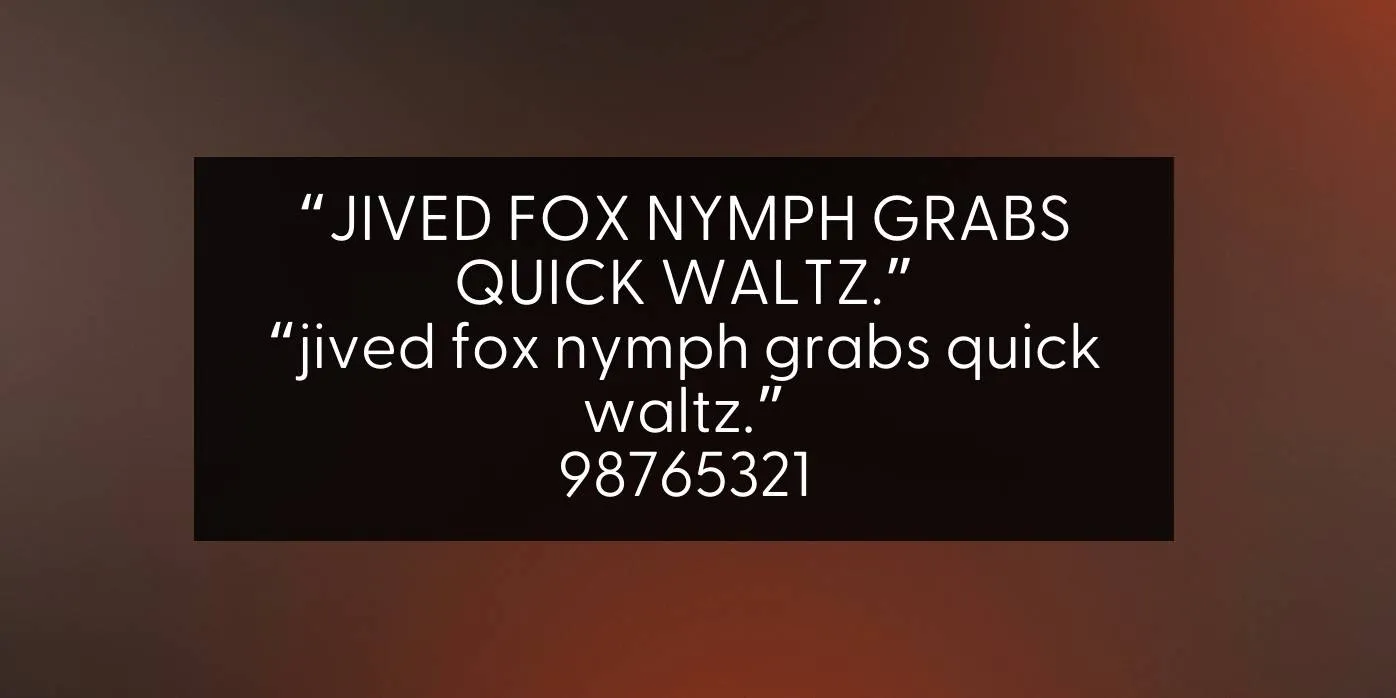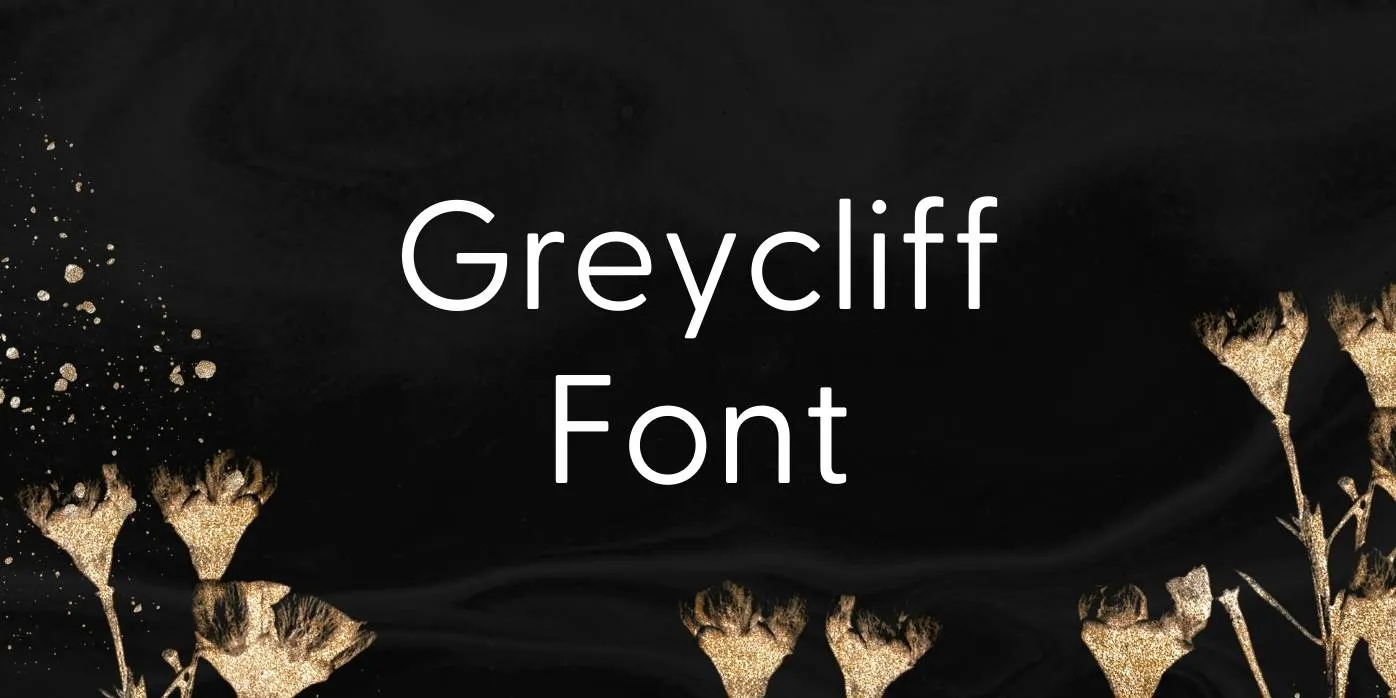
Greycliff Font
Today, we are going to discuss a classy typeface known as Greycliff Font. It belongs to the sans serif font family and was developed by Connary Fagen. The font was released on September 20, 2017. This stunning font is a versatile typeface that can be used for both headlines and body text.
It has a moderate x-height and strong horizontal stress, which makes it ideal for use in small sizes. The Greycliff Font also features wide apertures and short descenders, which give it an elegant appearance. Its copy and paste function is perfect for many designs. You can use a somatic font that has the same style and characters as this one.